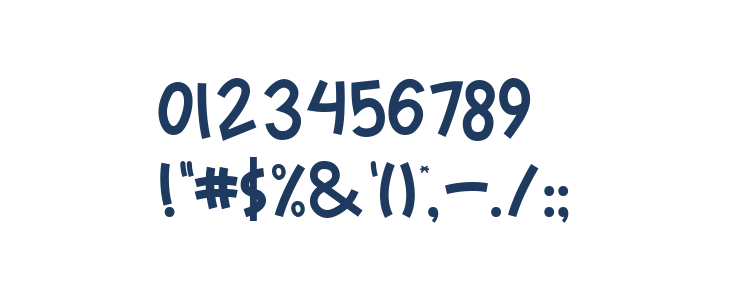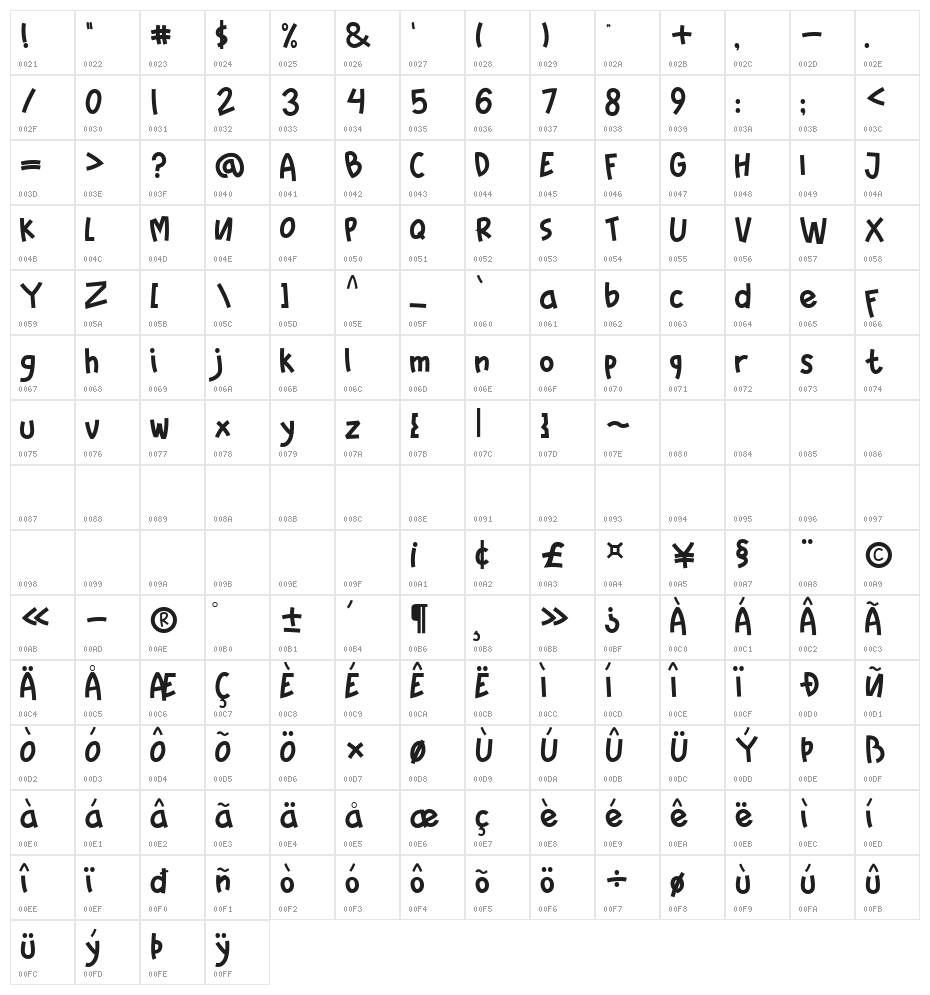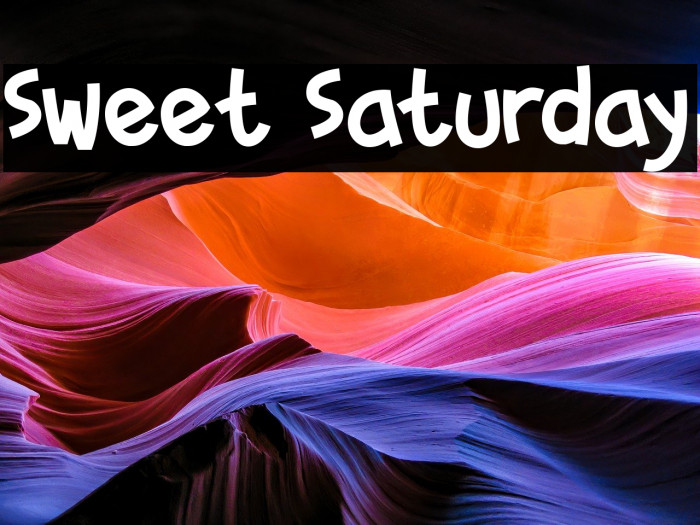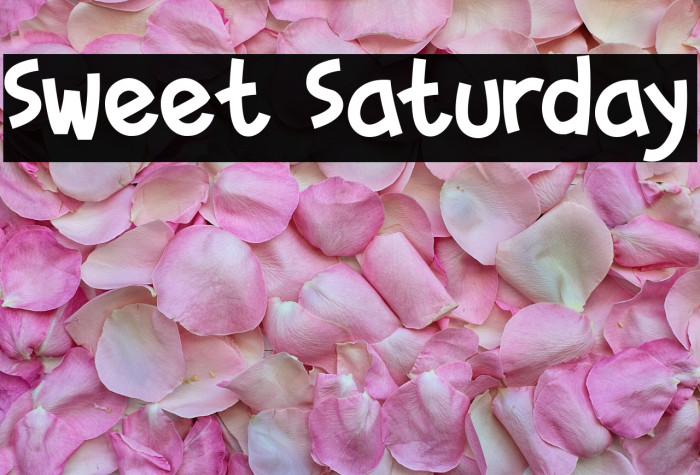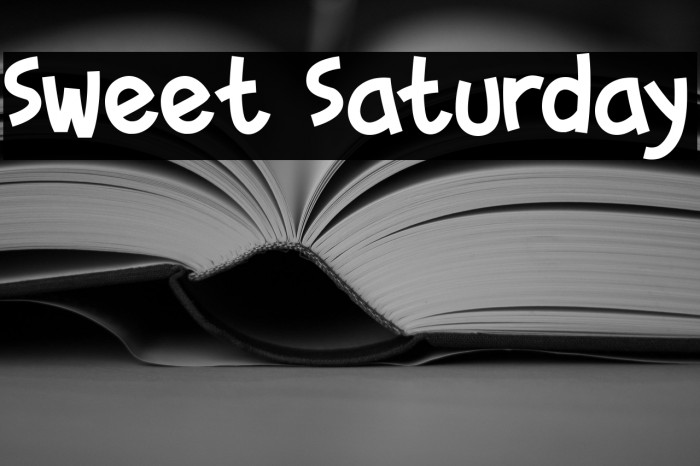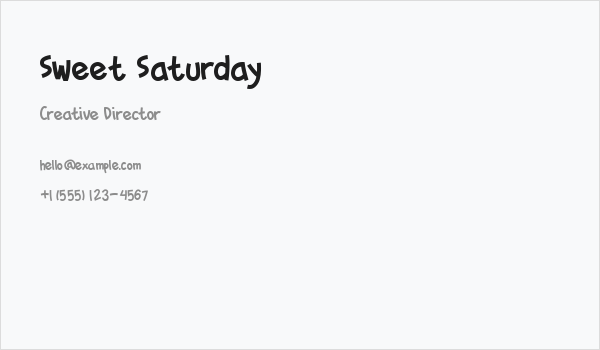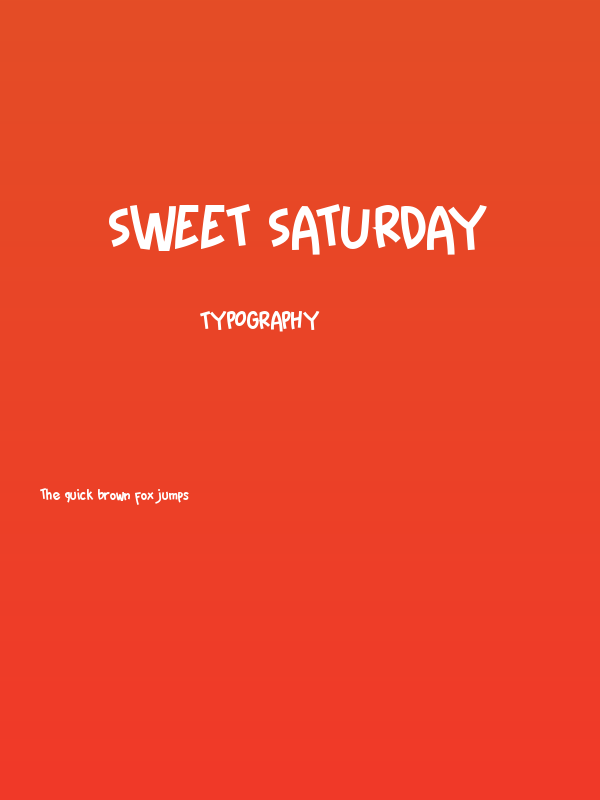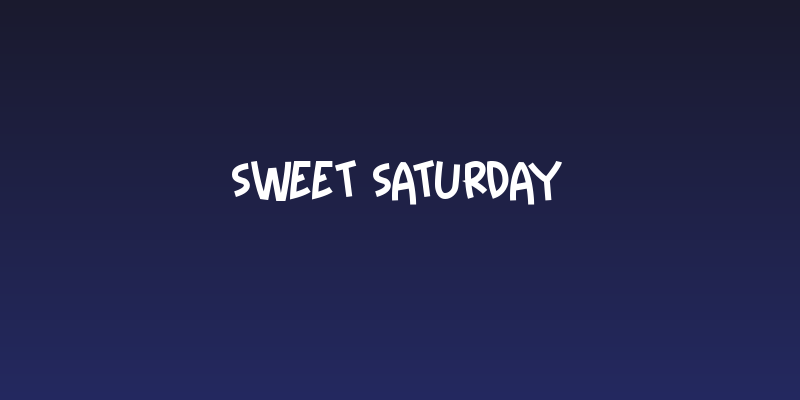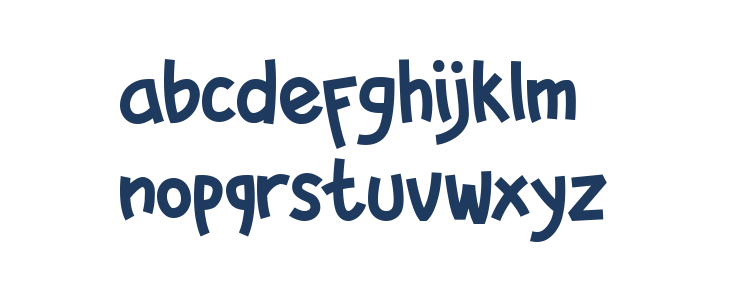
Sweet Saturday Font
Sweet Saturday Description
This playful and energetic font features bold, irregular strokes that give it a hand-drawn, whimsical appearance. The letters are slightly tilted and vary in width, adding a dynamic and informal feel. The uppercase and lowercase characters maintain a consistent style, with rounded edges and a sense of movement. Numbers and special characters follow the same lively design, making the font suitable for creative and fun projects. Its unique style captures attention and conveys a sense of joy and spontaneity.